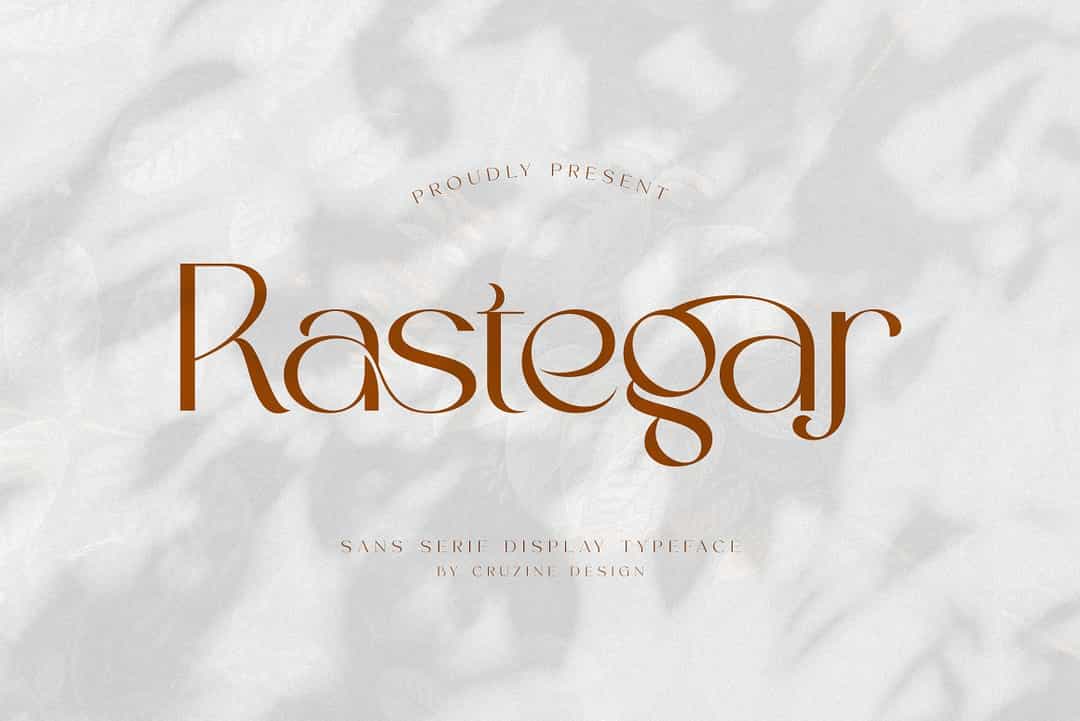
Rastegar font is an elegant, modern & retro style sans serif font perfect for creating stylish modern projects. Elegant yet fashionable design makes Rastegar font the ideal font choice when creating logo designs or website headers!